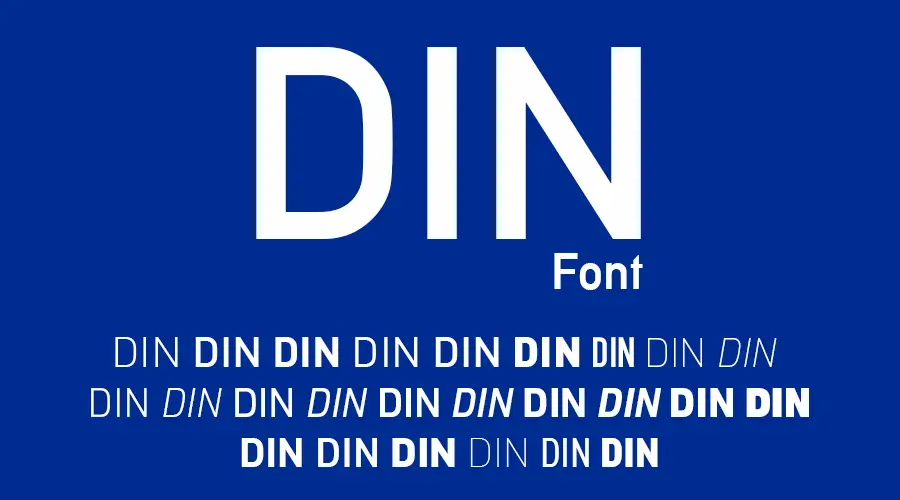
DIN font is a sans-serif typeface that originated from the German standard DIN 1451, established by the Deutsches Institut für Normung (German Institute for Standardization) in 1931.
The font was initially designed for industrial, technical, and administrative applications, particularly for traffic signage, where legibility and clarity were paramount.
The DIN font was developed with a specific purpose: to create a highly legible, standardized typeface that could be easily reproduced using limited technical means.
DIN Font
To sum up, DIN font is a typeface with a long and rich history, dating back to the early 20th century in Germany. It is a font based on geometric shapes, offering high readability and legibility. It is a font used for various purposes, such as signage, branding, editorial design, and packaging. It is a font with many versions and adaptations. It remains a popular and relevant font today, as it is widely used in many modern design projects. DIN font is simple, straightforward, strong, and elegant. It proves that sometimes, the simplest ideas are the most powerful.